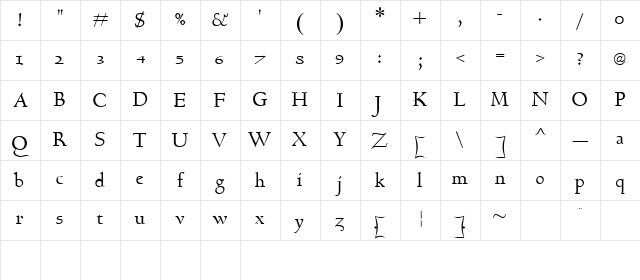
Base:Patriot Normal Free Font
Base:Patriot Normal
Style: Normal
Design Context for Base:Patriot
Base:Patriot is a composed and adaptable typeface that performs quietly and consistently across a wide range of design contexts.
Pro Tip: Use Base:Patriot in both headline and body roles to test its range before committing to a single application.